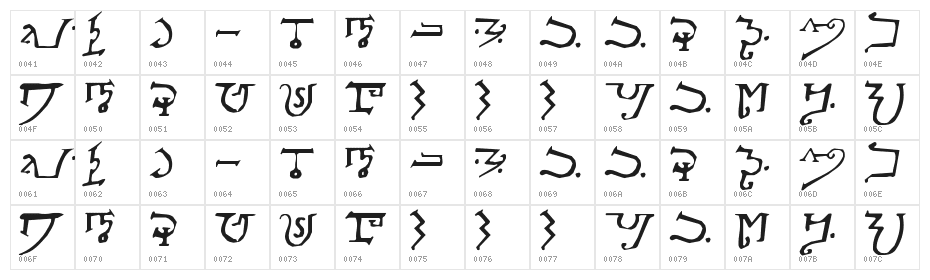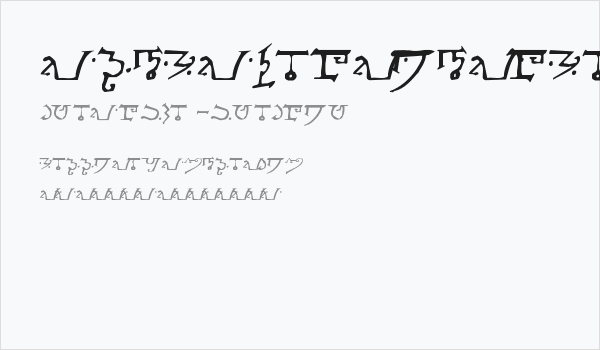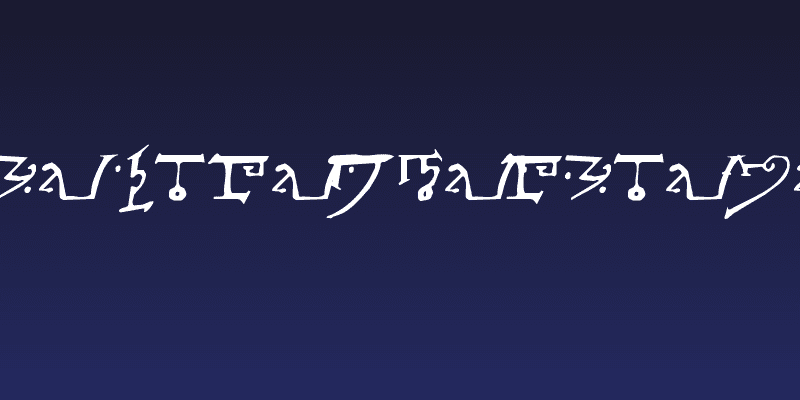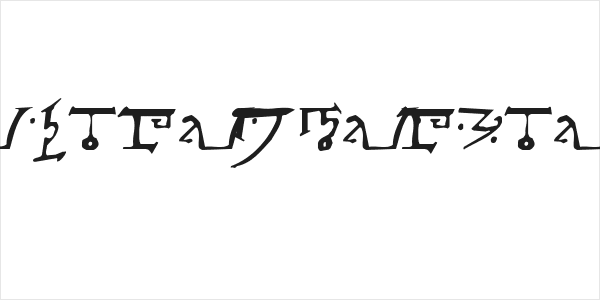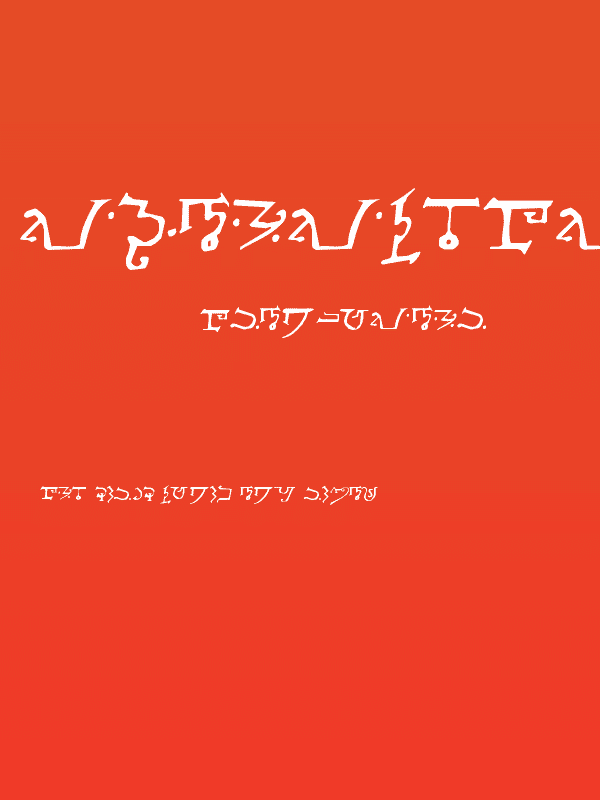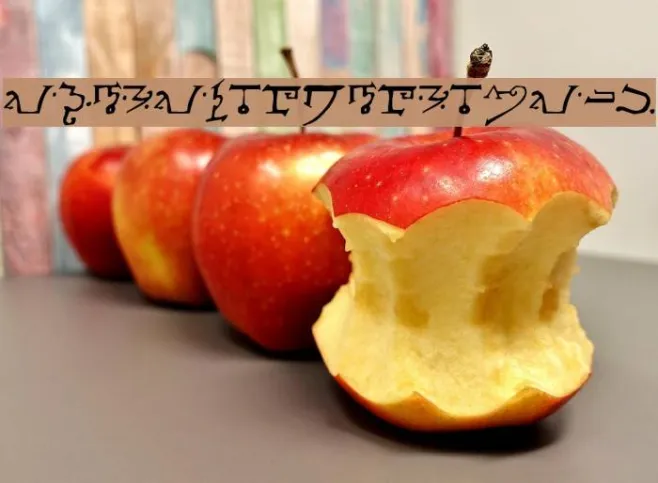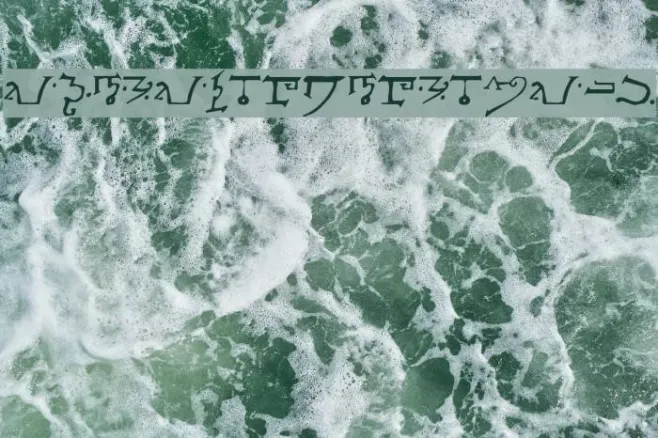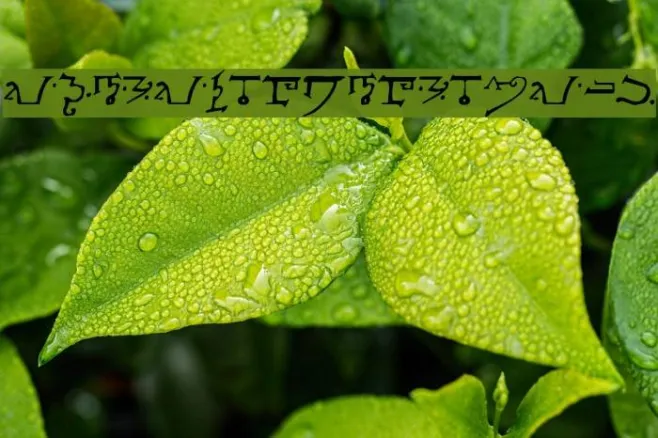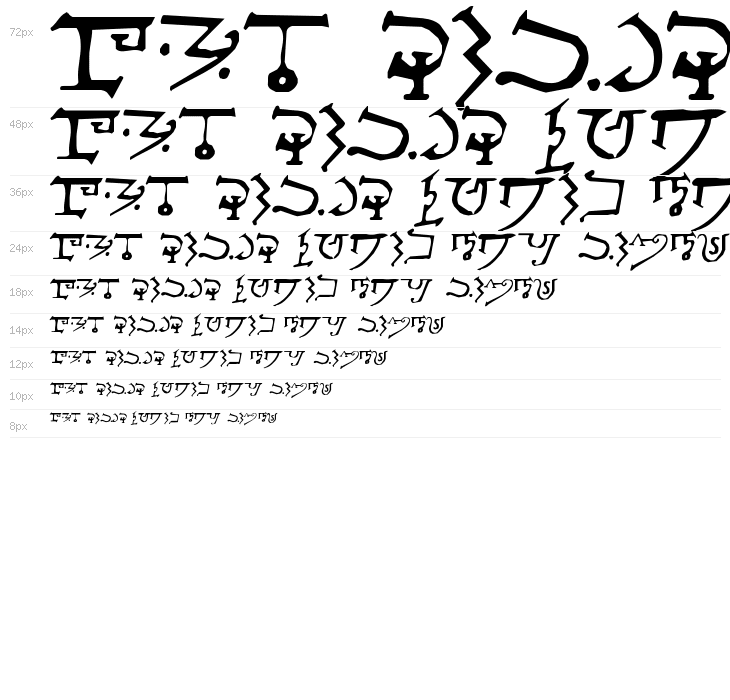
Alphabet-of-the-Magi Font
Alphabet-of-the-Magi Description
This font features a mystical and arcane design, reminiscent of ancient scripts used in magical texts. The characters are ornate, with intricate curves and sharp angles that suggest a sense of mystery and otherworldliness. Each letter is unique, with decorative elements that enhance its enigmatic appearance. The overall style is highly decorative, making it suitable for projects that require a touch of fantasy or historical intrigue. The font's design is complex, with a medium contrast in stroke thickness, adding to its elaborate and detailed look.
| Use Case | Logos, Posters, Book Covers |
| Proposed Projects | Ideal for fantasy book covers, magical-themed posters, or historical reenactment materials. |